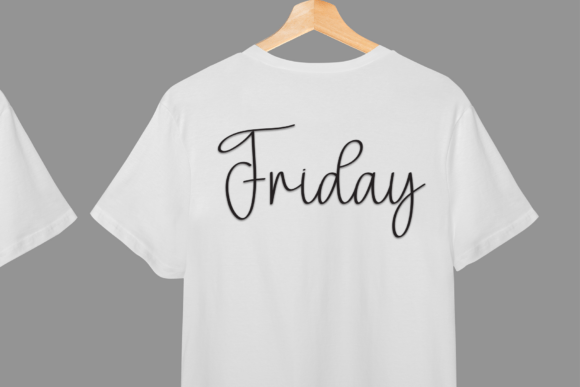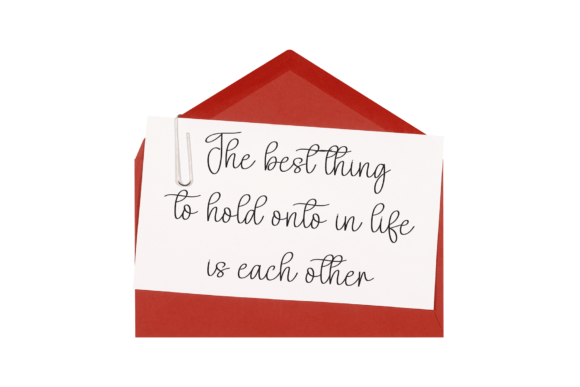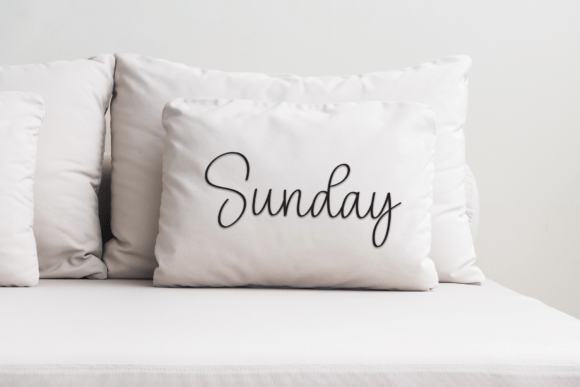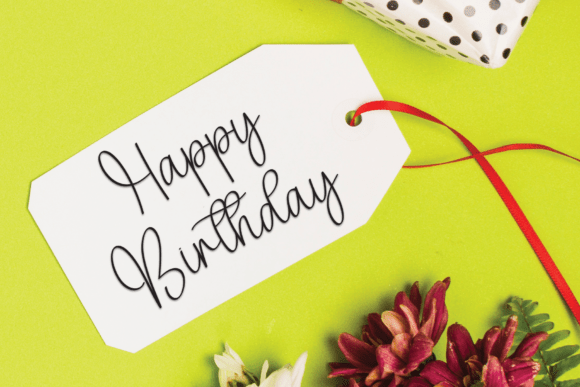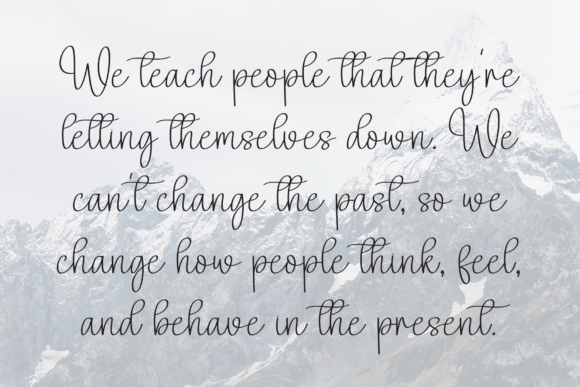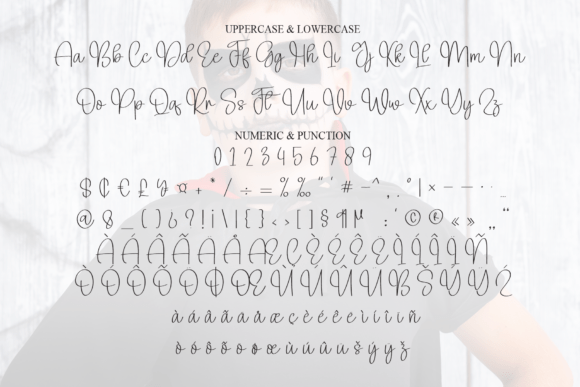
Introducing Costume: The Ultimate Stylish Script Font for Creative Designs
Are you a designer or crafter looking for a font that can add a touch of artistic flair and contemporary elegance to your projects? Look no further than Costume, a stylish script font that is sure to elevate your designs to the next level. In this article, we’ll take a closer look at the features and benefits of Costume, and explore how it can be used to create stunning logos, invitations, packaging, and social media graphics.
The Art of Hand-Painted Calligraphy
Costume is inspired by the art of hand-painted calligraphy, with fluid brush strokes, dynamic curves, and expressive letterforms that capture the essence of this traditional craft. However, unlike traditional calligraphy, Costume has a modern twist that makes it perfect for contemporary designs. Its natural flow and vibrant character make it an ideal choice for designers who want to add a creative and sophisticated touch to their work.
Key Features of Costume
So, what makes Costume such a unique and versatile font? Here are some of its key features:
- Fluid brush strokes: Costume features fluid brush strokes that give it a natural, hand-painted look.
- Dynamic curves: The font’s dynamic curves add a sense of movement and energy to your designs.
- Expressive letterforms: Each letterform in Costume is carefully crafted to be expressive and unique, making it perfect for designs that require a personal touch.
- Modern twist: While Costume is inspired by traditional calligraphy, it has a modern twist that makes it perfect for contemporary designs.
Use Cases for Costume
Costume is a versatile font that can be used for a wide range of design projects. Here are some of the most popular use cases:
- Logos: Costume is perfect for creating unique and memorable logos that require a touch of elegance and sophistication.
- Invitations: Whether you’re designing wedding invitations, birthday invitations, or any other type of invitation, Costume is a great choice.
- Packaging: Costume can add a touch of luxury and sophistication to your packaging designs, making them stand out on store shelves.
- Social media graphics: Costume is perfect for creating eye-catching social media graphics that require a creative and artistic touch.
Benefits of Using Costume
So, why should you choose Costume for your design projects? Here are some of the benefits of using this stylish script font:
- Visual impact: Costume delivers a strong visual impact, making it perfect for designs that require attention-grabbing typography.
- Versatility: Costume can be used for a wide range of design projects, from logos and invitations to packaging and social media graphics.
- Elegance and sophistication: Costume adds a touch of elegance and sophistication to any design, making it perfect for high-end brands and luxury products.
- Creative freedom: With Costume, you have the creative freedom to experiment with different design ideas and concepts, making it perfect for designers who want to push the boundaries of typography.
In conclusion, Costume is a stylish script font that is perfect for designers and crafters who want to add a touch of artistic flair and contemporary elegance to their designs. With its fluid brush strokes, dynamic curves, and expressive letterforms, Costume captures the essence of hand-painted calligraphy with a modern twist. Its versatility, visual impact, and elegance make it an ideal choice for a wide range of design projects, from logos and invitations to packaging and social media graphics. So why settle for ordinary fonts when you can use Costume to create extraordinary designs?